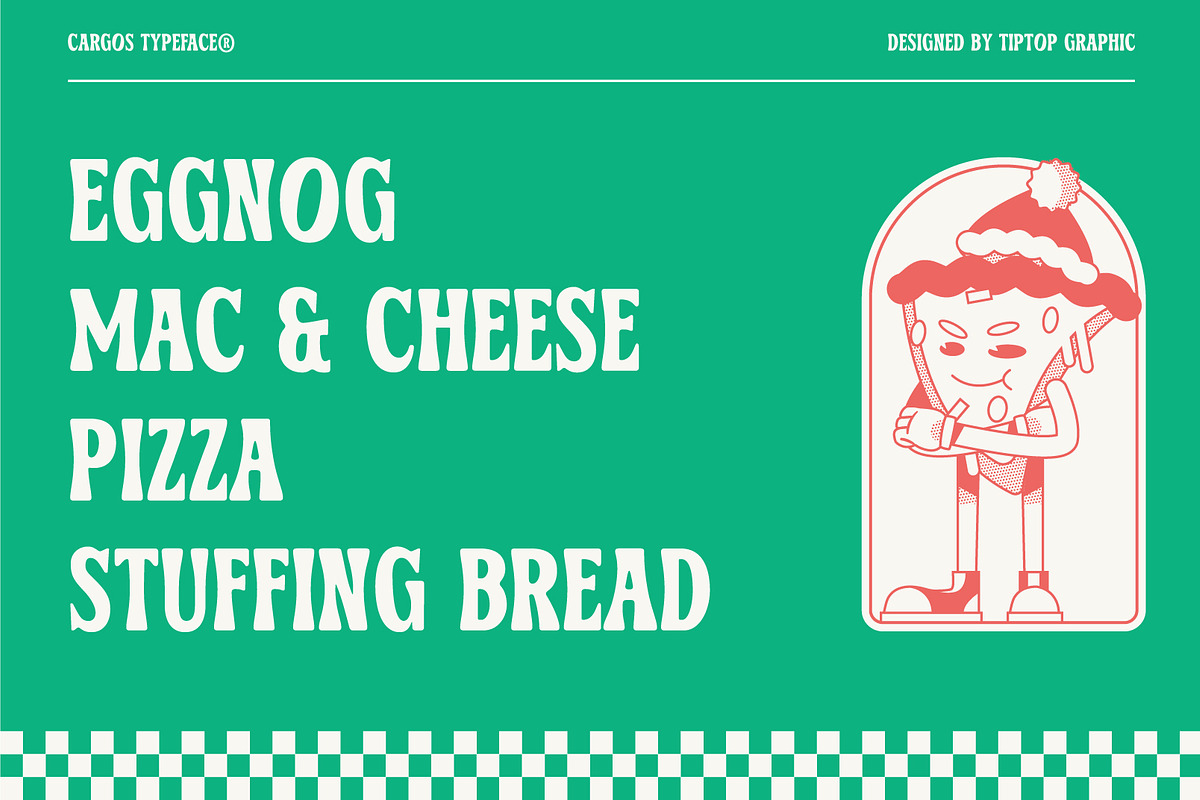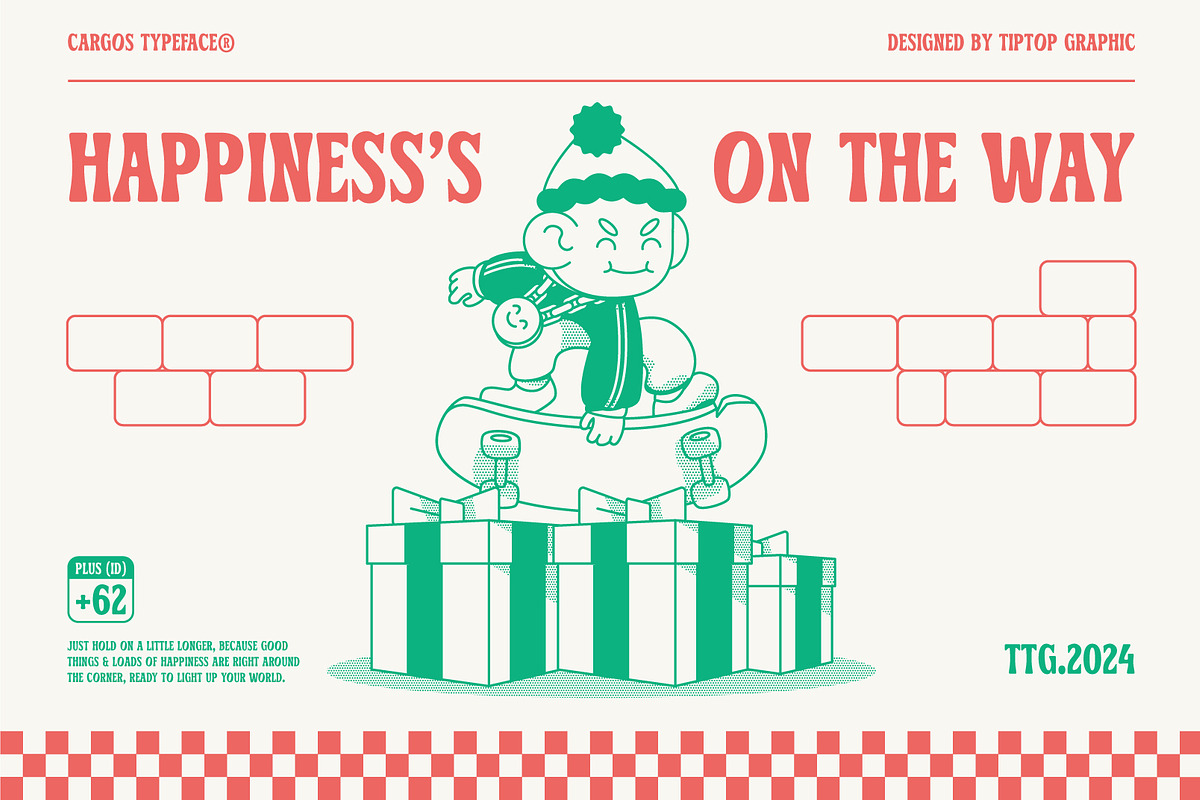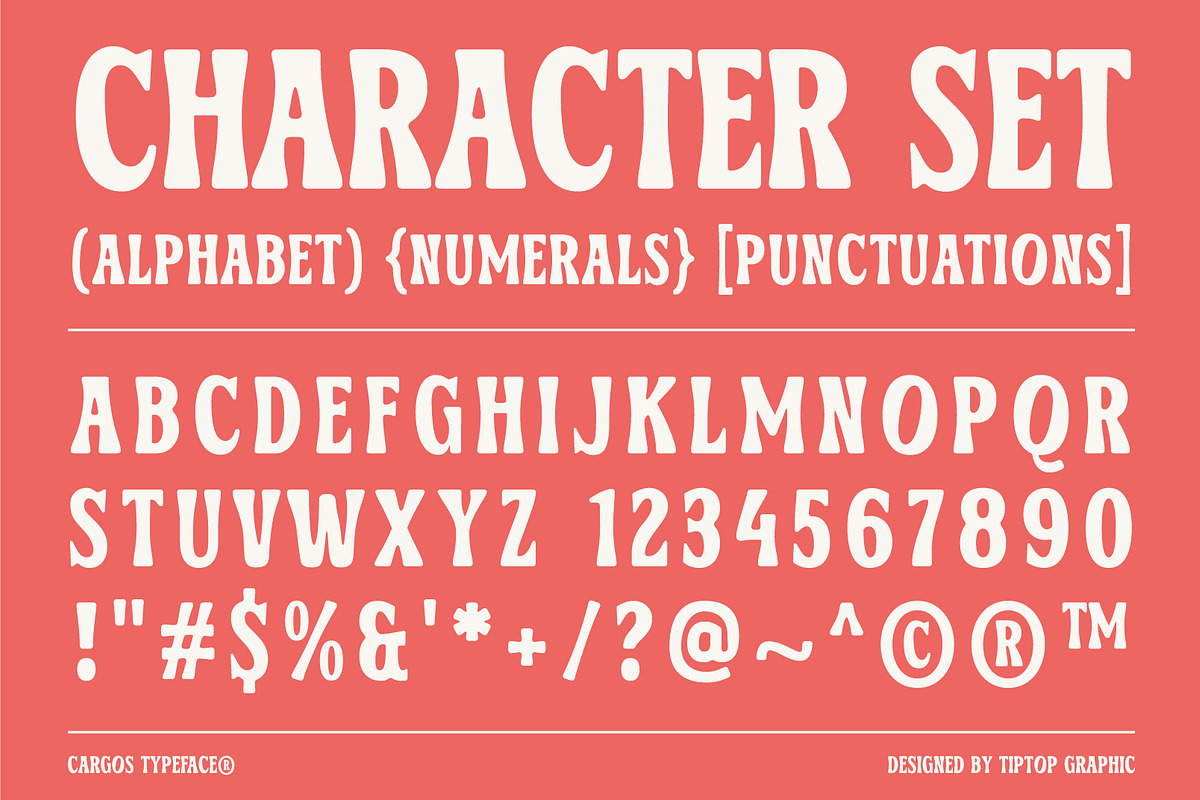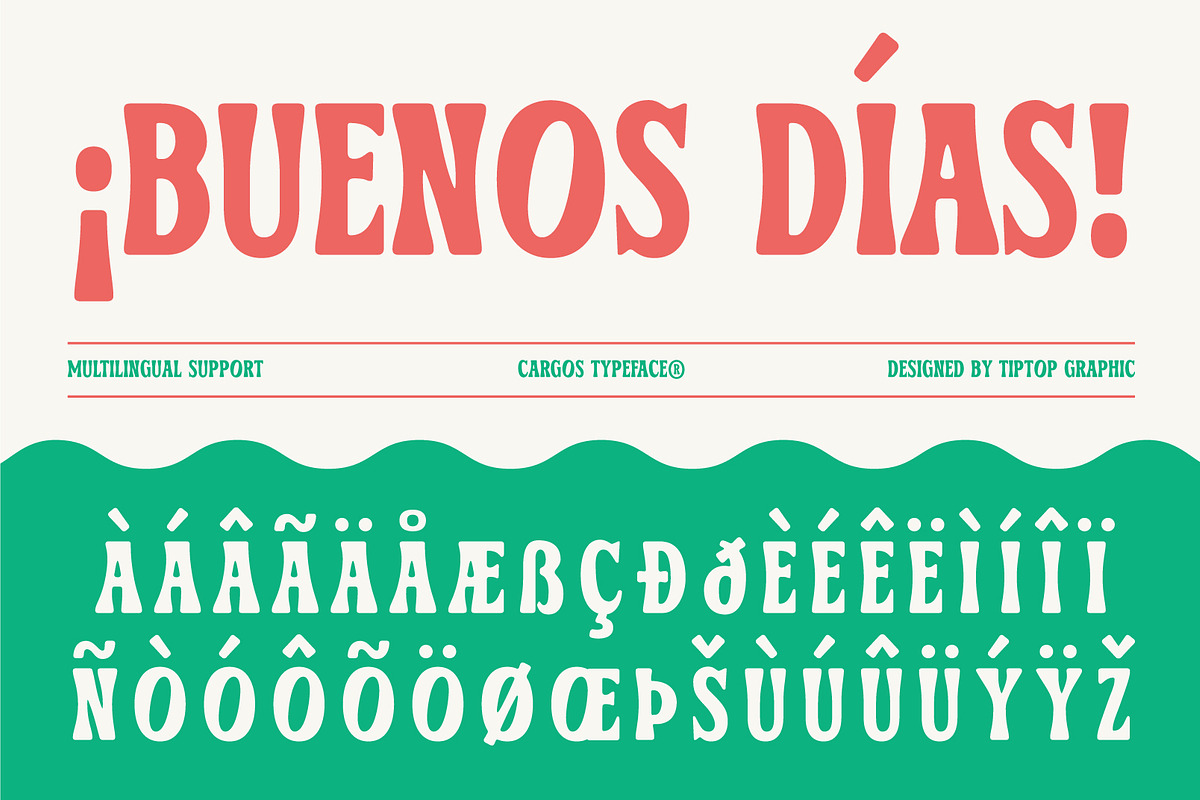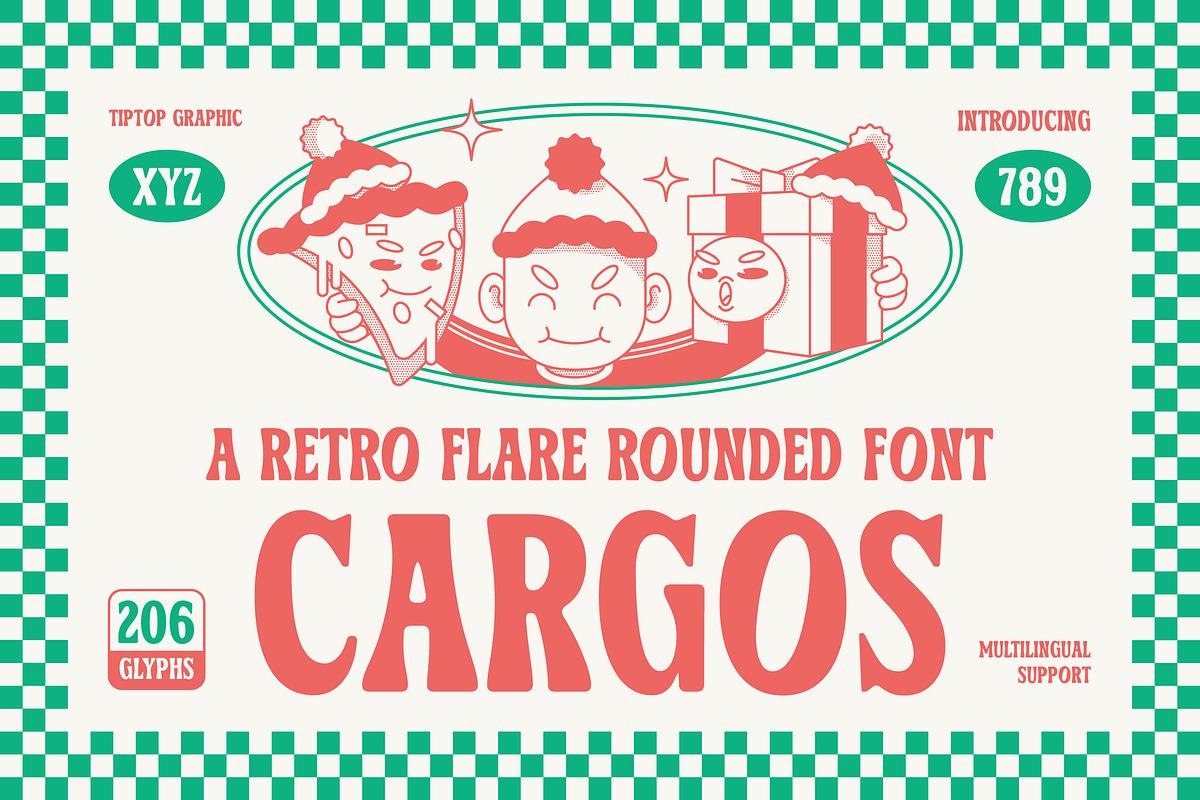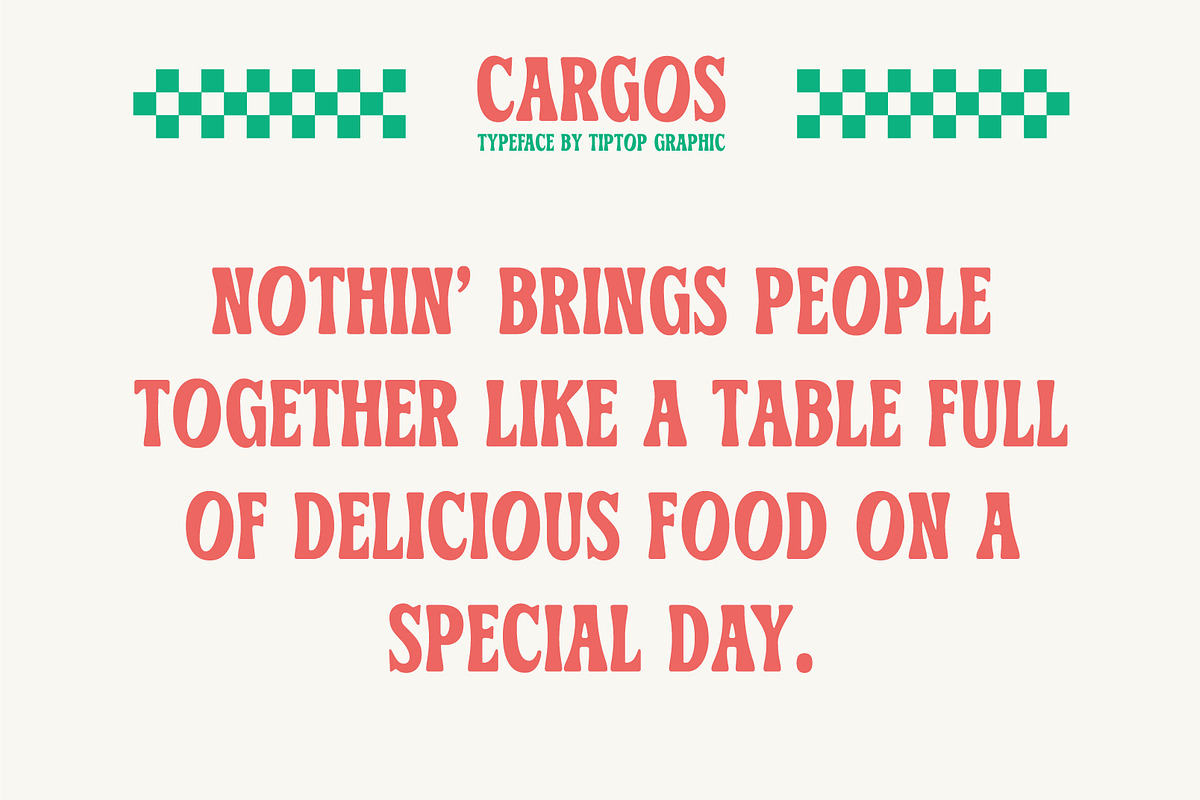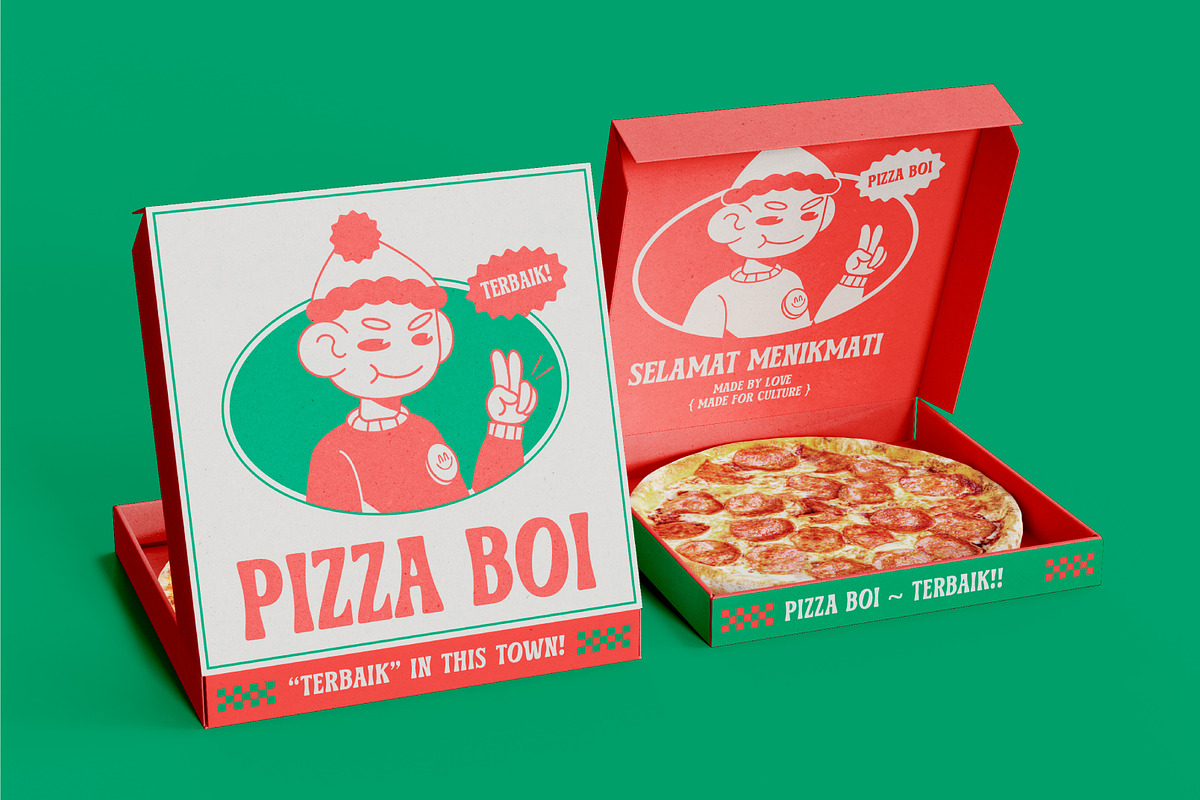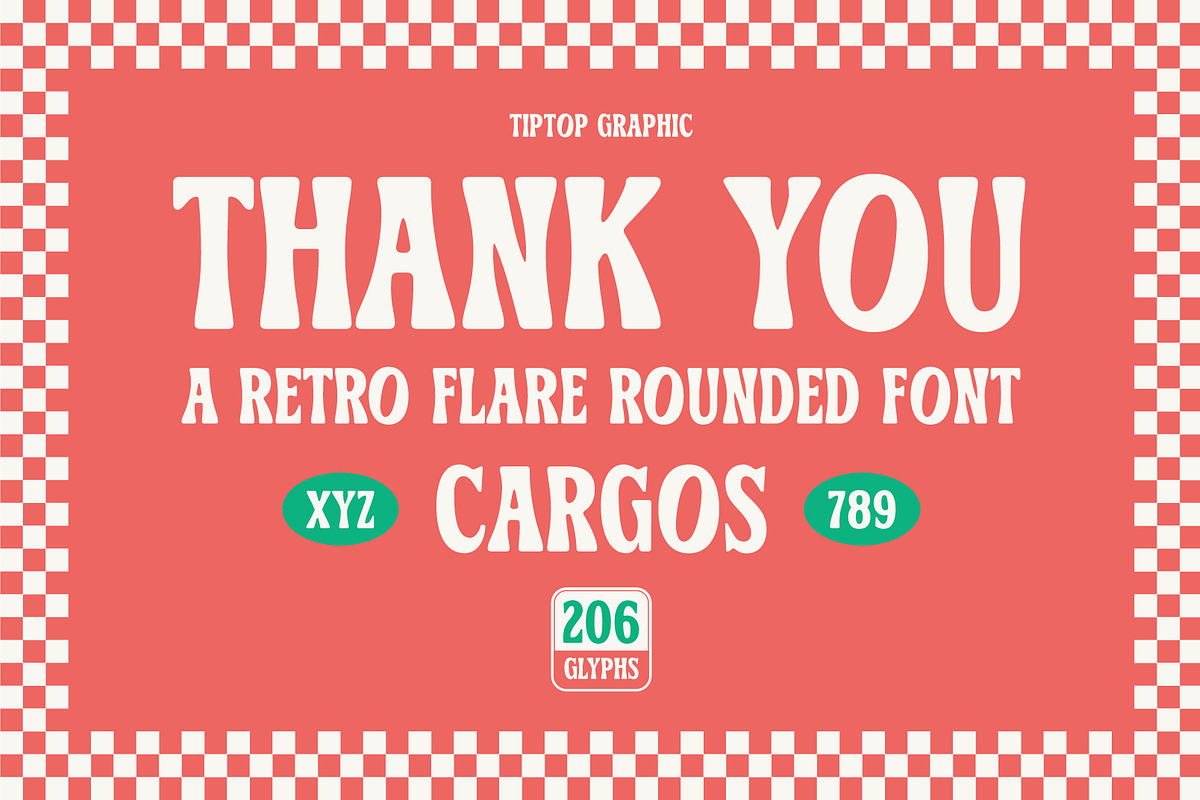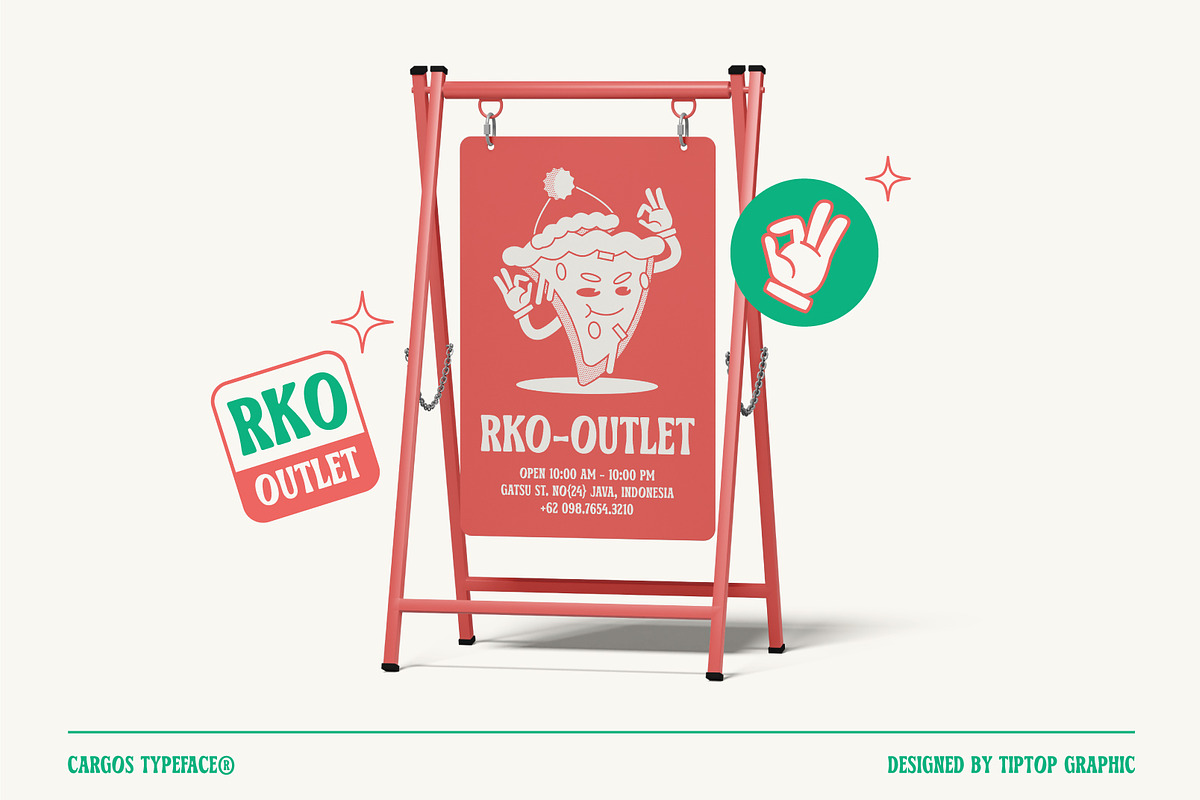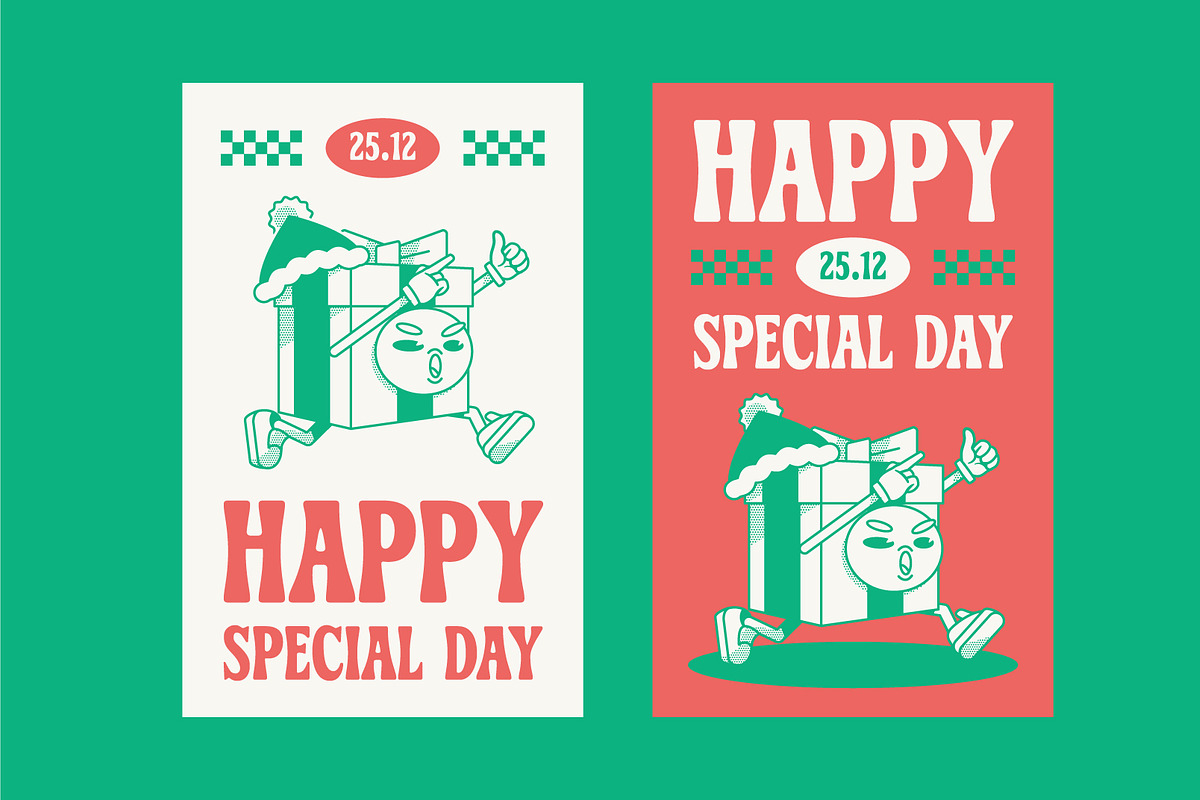
Cargos – Retro Flare Rounded Display
Cargos – Retro Flare Rounded Display Font
Cargos brings a cozy, nostalgic charm perfect for the Retro Christmas season! With it’s smooth, rounded edges and retro-inspired flare, this font adds warmth and a touch of vintage elegance to any Christmas design. Ideal for festive greeting cards, holiday posters, and seasonal branding, Cargos combines a playful yet sophisticated look, reminiscent of classic christmas decor. It’s bold and inviting style makes it the perfect choice for spreading holiday cheer in a truly unique, retro-inspired way.
Cargos features:
- Character Set (All Caps)
- Punctuation & Numbers